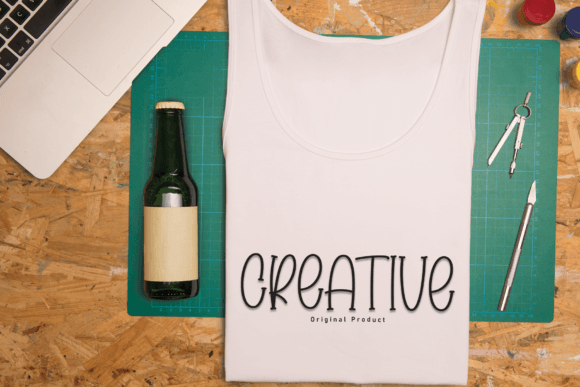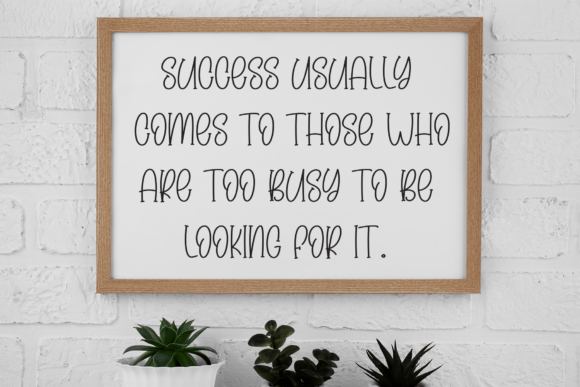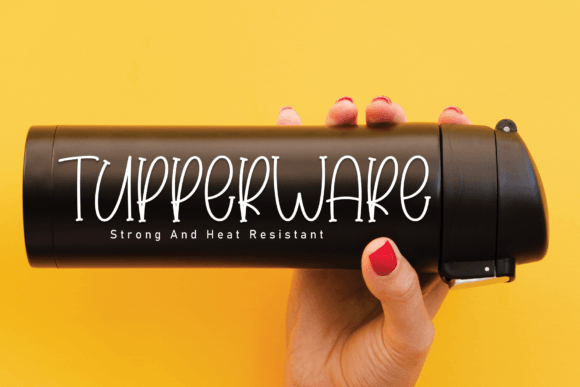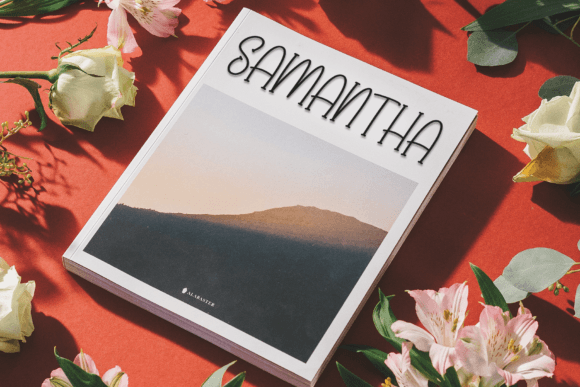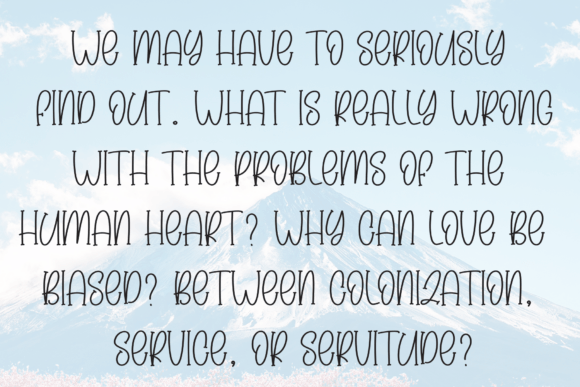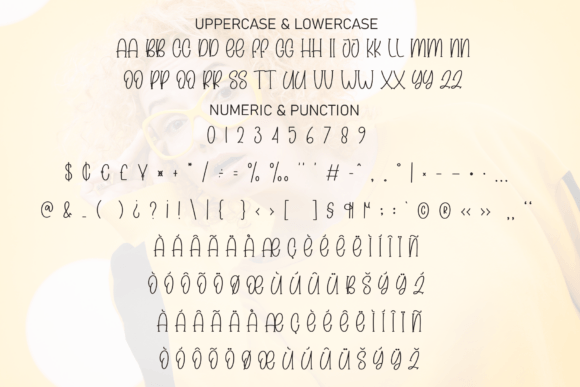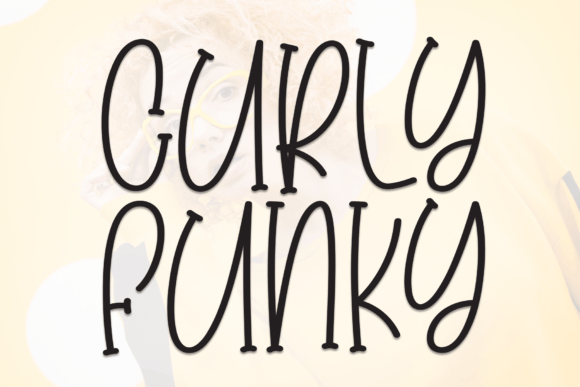
Introducing Curly Funky Font: Add a Playful Touch to Your Designs
**Curly Funky** is a light and playful font with wavy, curly lines. Its unique style adds a fun and energetic vibe to any text, making it great for creative projects!
The Perfect Font for Creative Projects
Are you tired of using the same old fonts in your designs? Do you want to add a touch of playfulness and whimsy to your text? Look no further than Curly Funky Font! This delightful font is perfect for designers, crafters, and anyone looking to add some personality to their work.
What Makes Curly Funky Font So Special?
Curly Funky Font is a one-of-a-kind font that features wavy, curly lines that give it a unique and energetic feel. Its light and playful style makes it perfect for a variety of creative projects, from handmade crafts to digital designs. Whether you’re creating invitations, greeting cards, or social media graphics, Curly Funky Font is sure to add a fun and lively touch.
Key Features of Curly Funky Font
• Unique and playful design: Curly Funky Font features wavy, curly lines that give it a distinctive and eye-catching style.
• Light and energetic feel: The font’s light and playful style makes it perfect for adding a fun and lively touch to your designs.
• Versatile: Curly Funky Font can be used for a variety of creative projects, from handmade crafts to digital designs.
• Easy to read: Despite its playful style, Curly Funky Font is easy to read and understand, making it perfect for use in a variety of applications.
How to Use Curly Funky Font in Your Designs
Curly Funky Font is easy to use and can be incorporated into a variety of design projects. Here are a few ideas to get you started:
• Handmade crafts: Use Curly Funky Font to add a personal touch to your handmade crafts, such as greeting cards, invitations, and scrapbook pages.
• Digital designs: Add a playful touch to your digital designs, such as social media graphics, blog posts, and website headers.
• Signs and banners: Use Curly Funky Font to create eye-catching signs and banners for events, parties, and businesses.
Tips for Getting the Most Out of Curly Funky Font
Here are a few tips for getting the most out of Curly Funky Font:
• Use it sparingly: While Curly Funky Font is playful and fun, it can be overwhelming if used too much. Use it sparingly to add a touch of whimsy to your designs.
• Pair it with other fonts: Curly Funky Font pairs well with other fonts, such as bold and sans-serif fonts. Experiment with different font combinations to find the perfect look for your design.
• Experiment with colors: Curly Funky Font looks great in a variety of colors. Experiment with different colors to find the perfect shade for your design.
Curly Funky Font is a unique and playful font that adds a fun and energetic vibe to any text. Its light and curly lines make it perfect for creative projects, from handmade crafts to digital designs. With its versatility, ease of use, and playful style, Curly Funky Font is sure to become a favorite among designers and crafters. So why not give it a try and add a touch of whimsy to your designs?